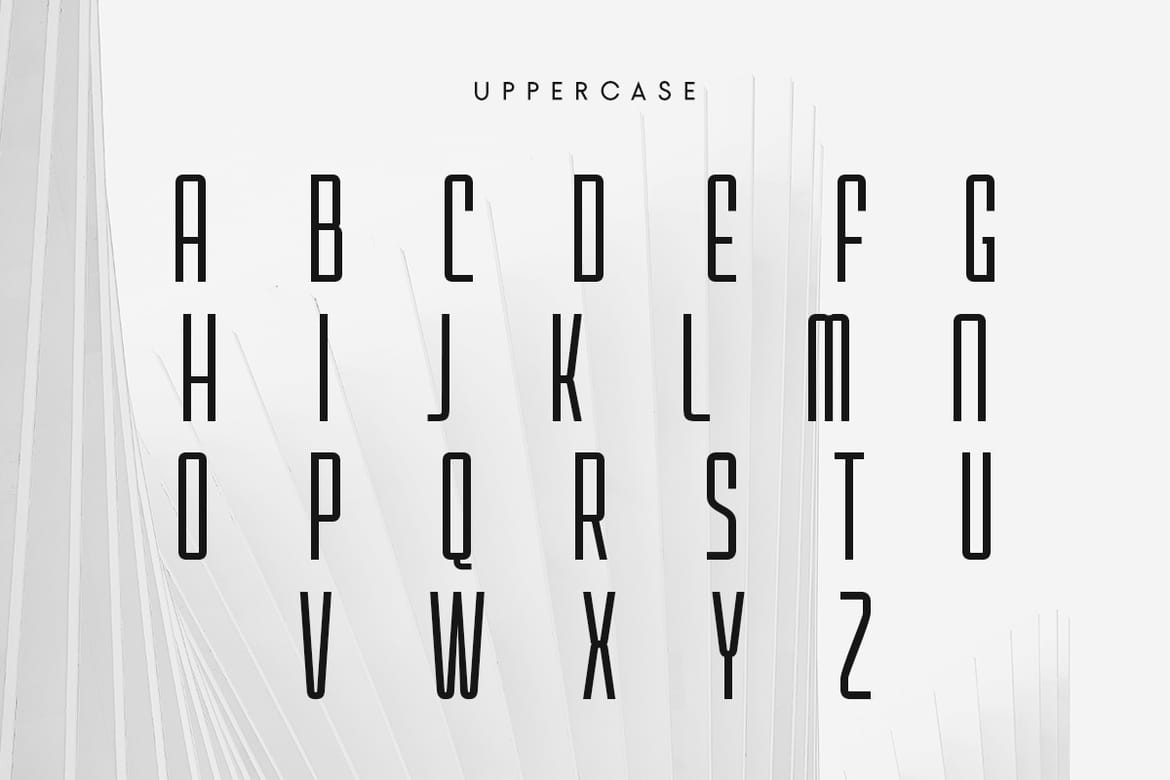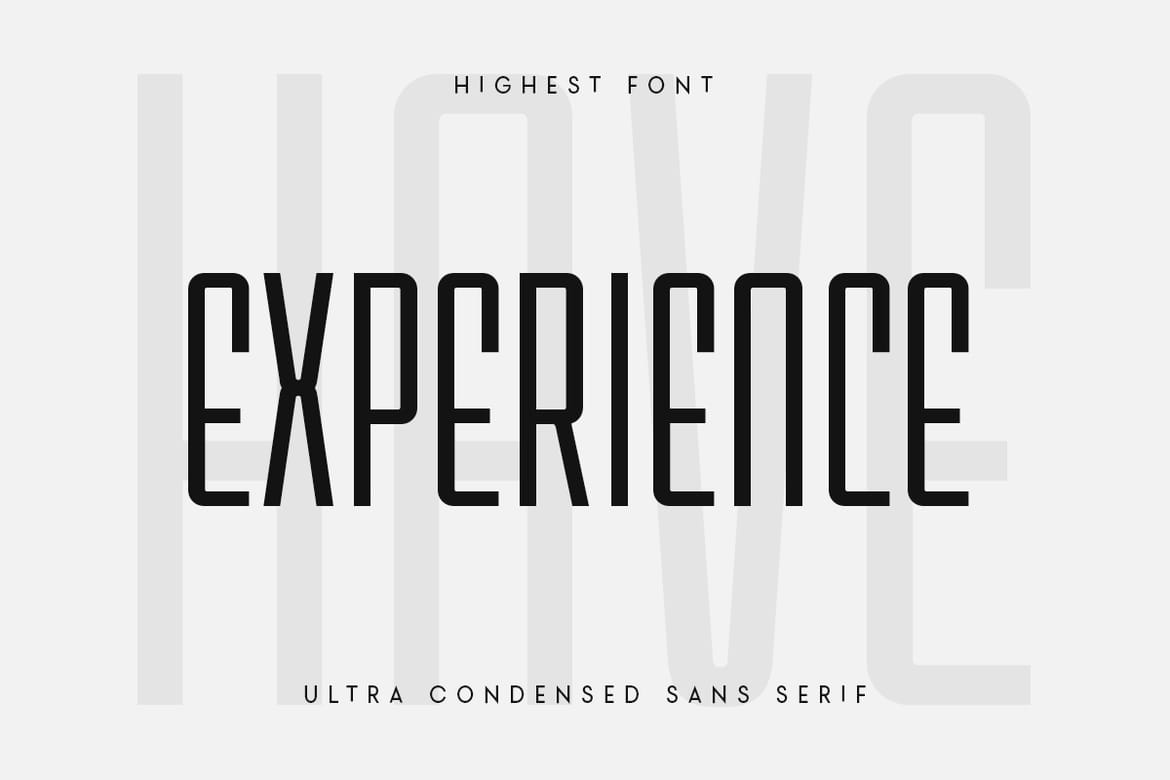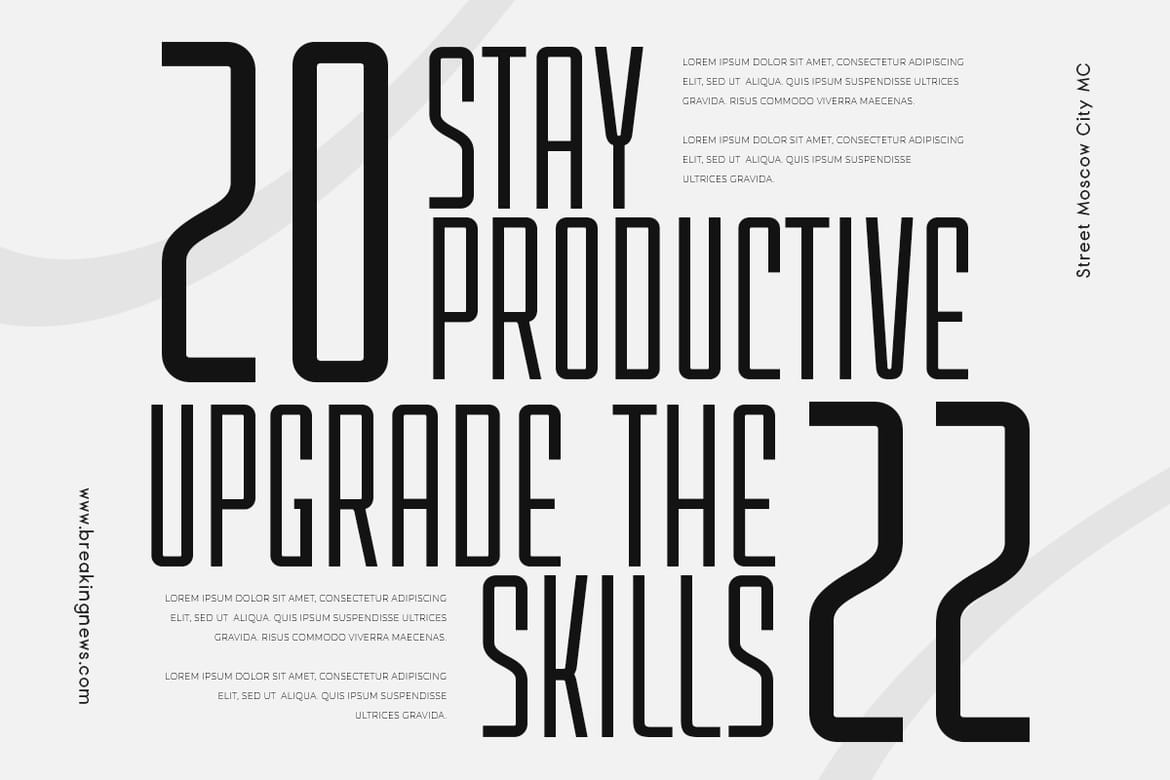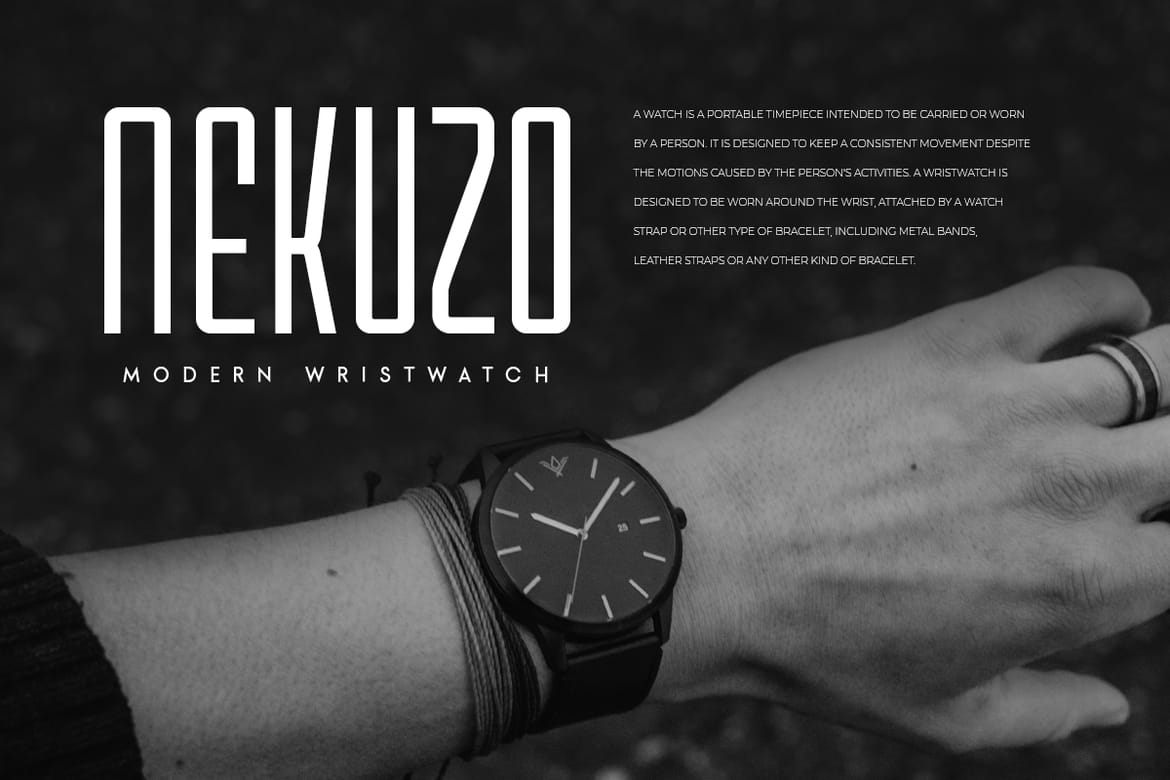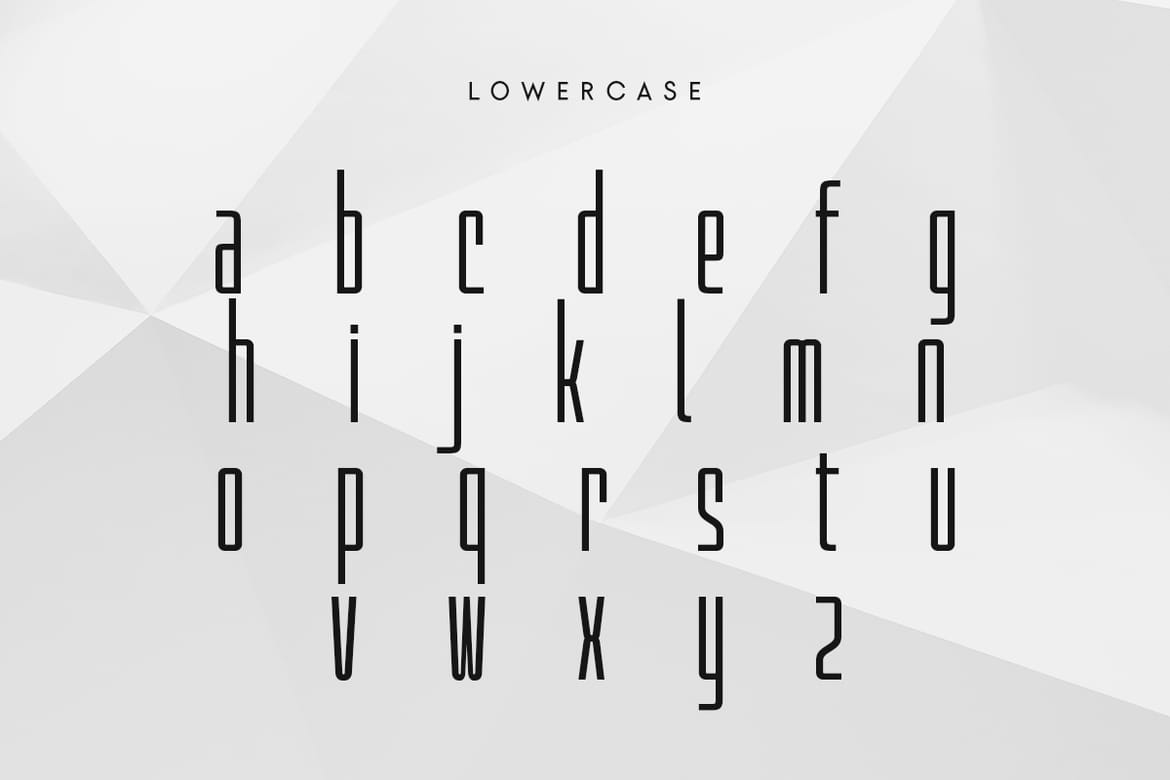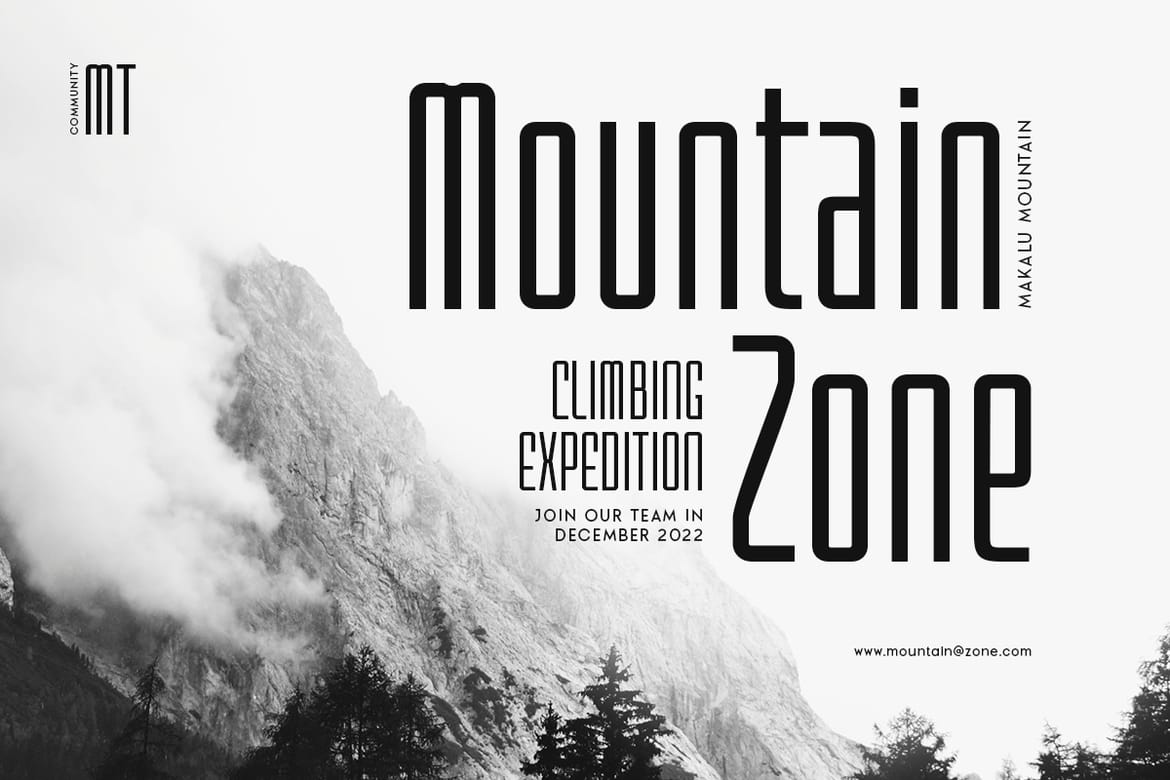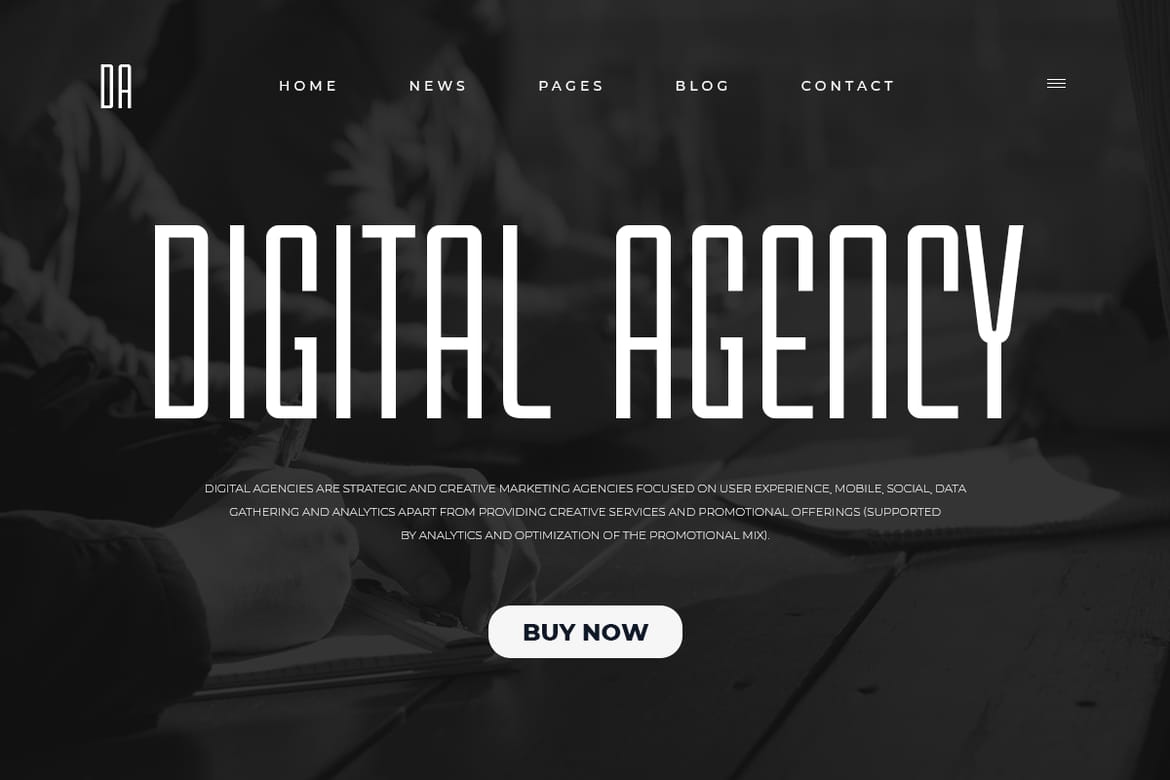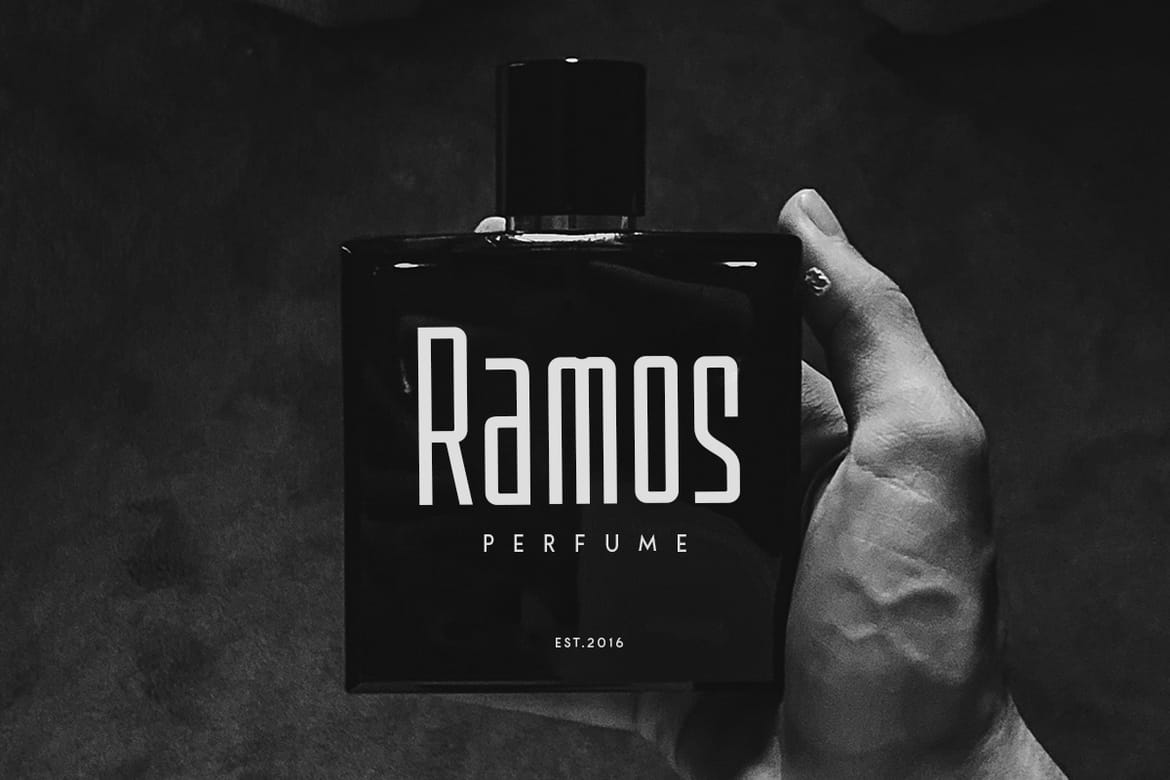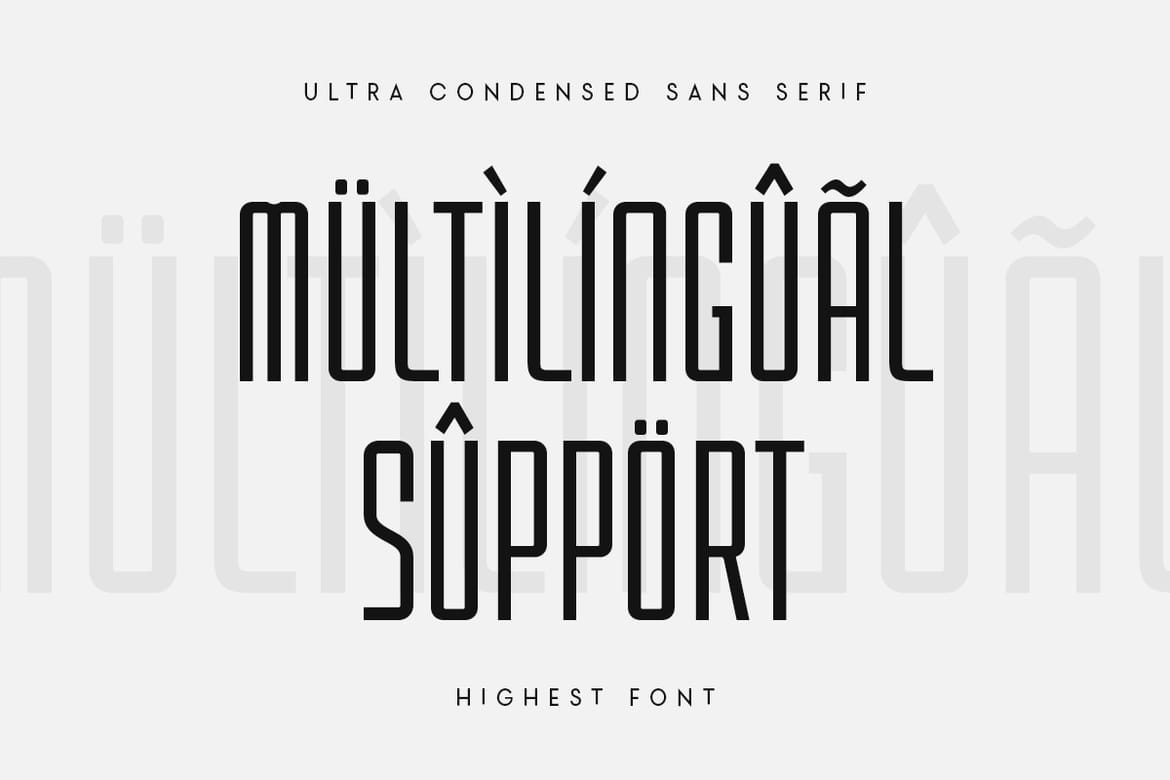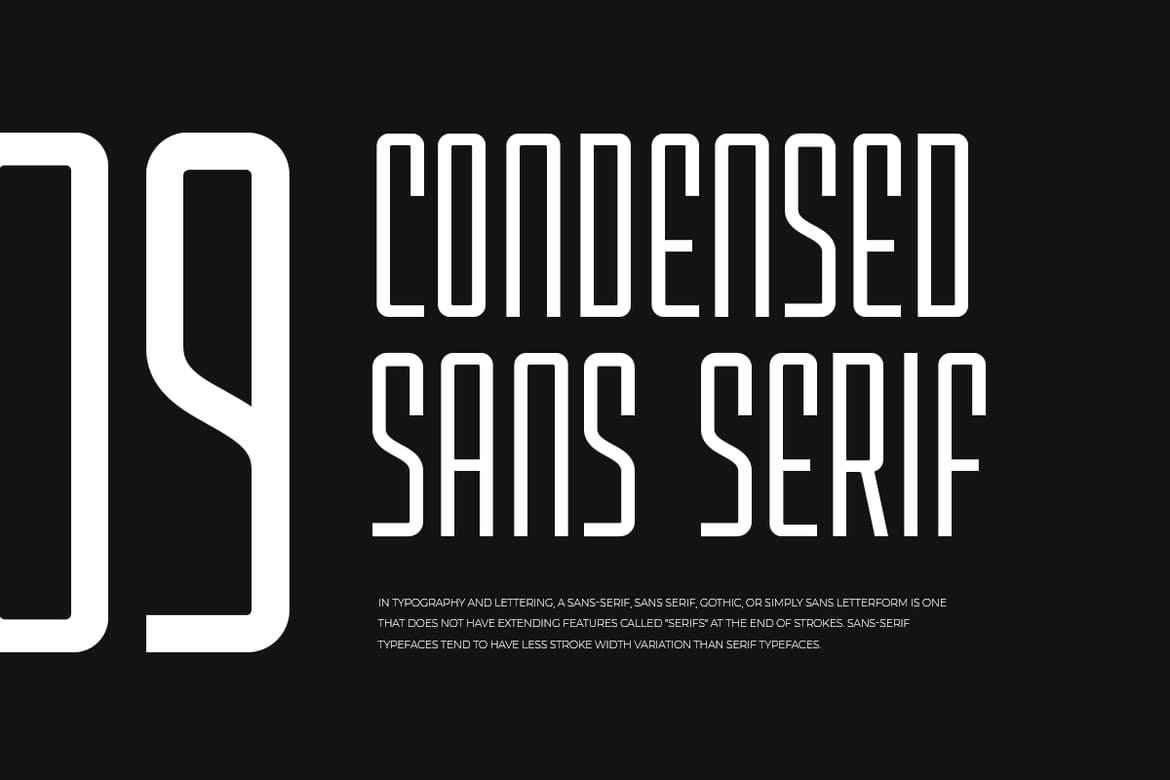
Highest - Ultra Condensed Sans Serif
Ultra condensed sans serif font perfect for headlines and display needs. Modern minimalist style with unique character shapes. Ready with alternate characters and ligatures for creative variations.
• Ultra condensed font
• Perfect for headlines
• Modern minimalist display
Highest - Ultra Condensed Sans Serif